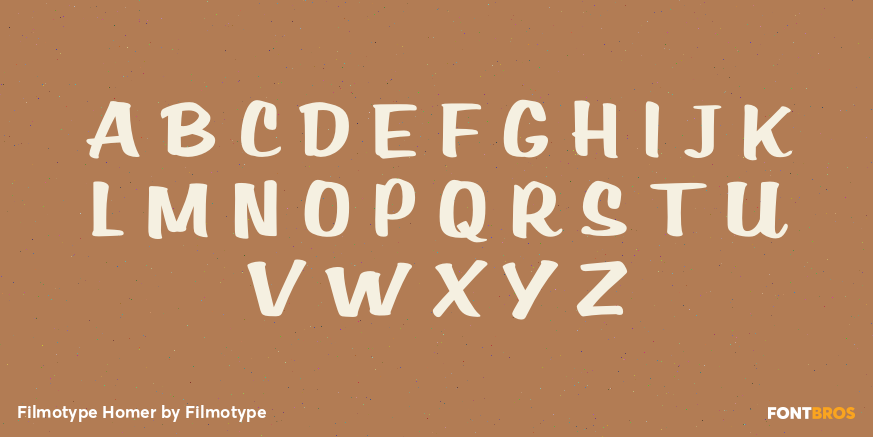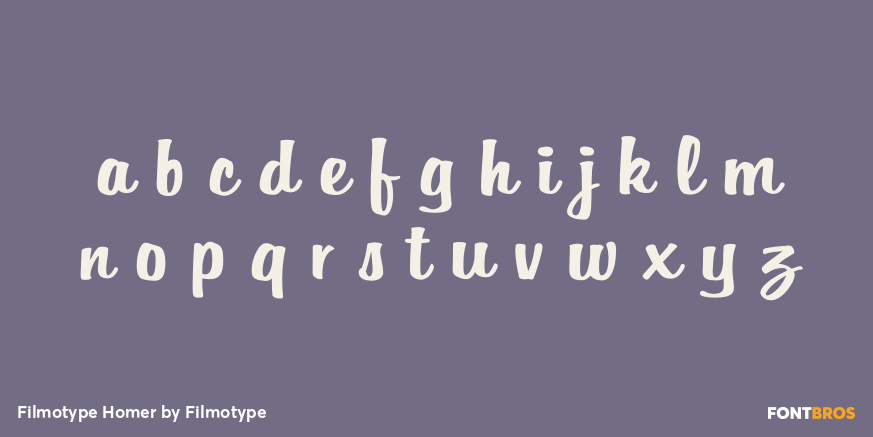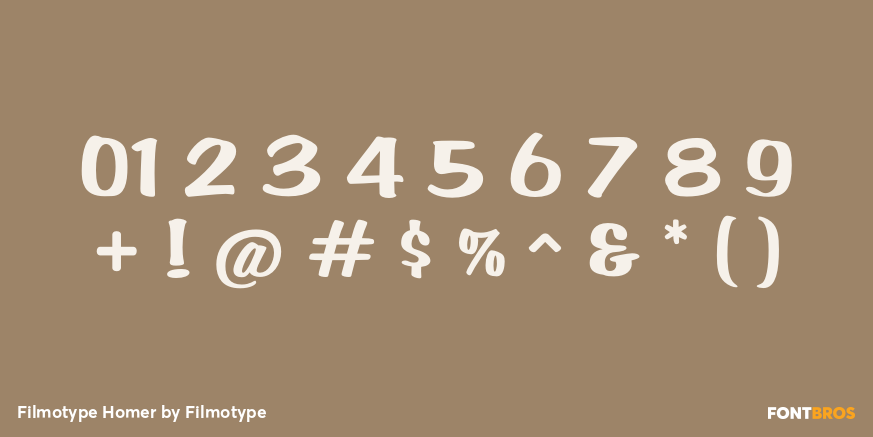
Filmotype Homer
Introduced by Filmotype in the early to mid-1950s, Filmotype Homer was created in response to customer demand for a wider brush script expanding on Filmotype's popular sign painter sho-card lettering styles used in the late 1940s through the 1950s. With its bold unique brush lettered forms and larger x-height, Filmotype Homer is easily readable at smaller sizes while retaining is classic pinstripe speed shop look.
Filmotype Homer was developed from the original font filmstrips and includes a full international character complement, automatic fractionals, ordinals, and a generous complement of alternate characters and ligatures, creating a genuine connecting hand-painted look in dynamic OpenType format.